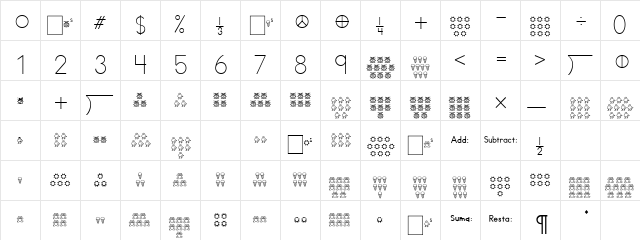
AbcMath Regular Font Preview
AbcMath Regular
Design Context for AbcMath Typeface
AbcMath takes a measured approach to typography — its balanced proportions and neutral character make it a reliable workhorse for both digital and print work.